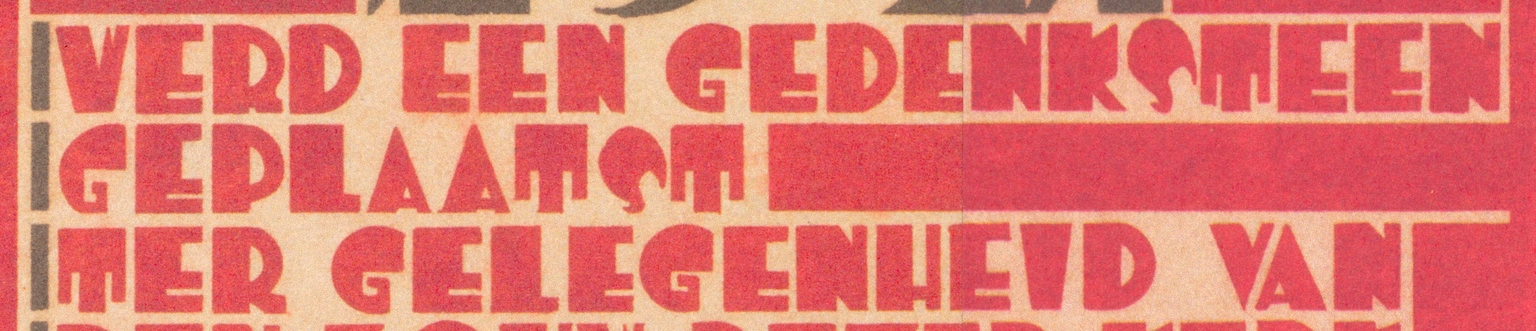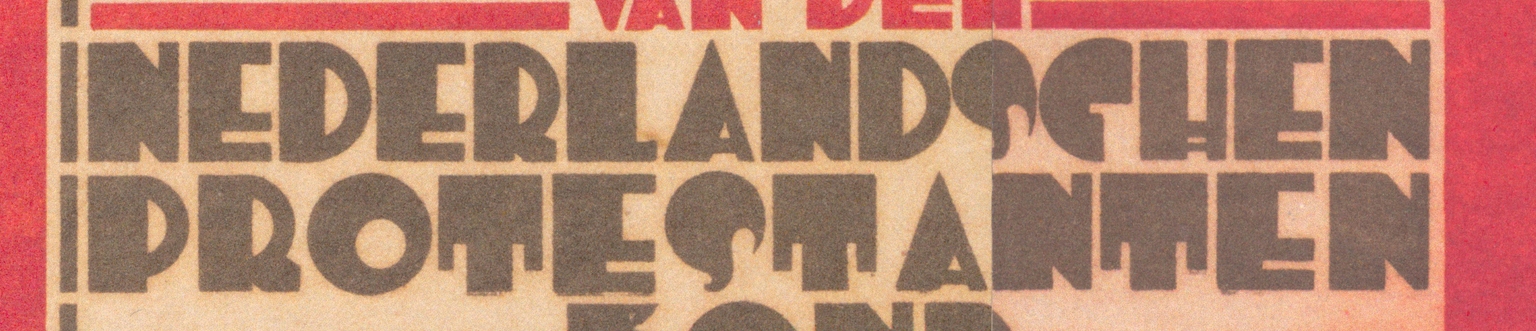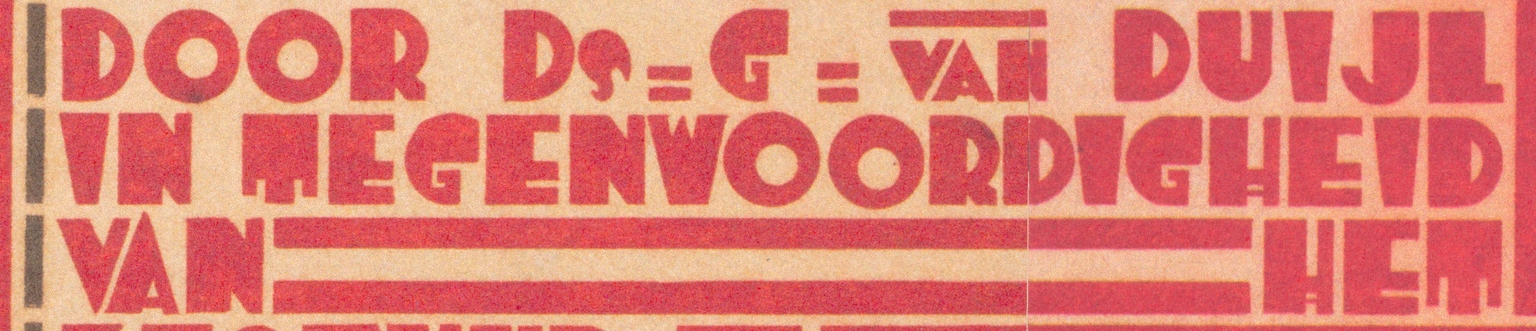
Kazemat
Kazemat is an expressionist display typeface designed by Ramiro Espinoza and inspired by a design created in 1927 by architect C. M. Bakker for the Nederlandschen Protestanten Bond (Dutch Protestant Union). The original lettering is characterized by strong contrasts, sharp angles, simplified geometric construction, and a dynamic rhythm typical of interwar Expressionist design, where typography served as a vehicle for emotion and visual impact.
As with many typefaces in the Brutal Types collection, Espinoza studied the structure and character of Bakker’s letterforms and translated them into a contemporary digital design. Rather than reproducing the poster lettering literally, he refined the forms, improved consistency, and expanded the character set for modern use, while preserving the tension and spontaneity of the source.
With its angular shapes and strong presence, Kazemat is well suited for posters, editorial design, cultural projects, branding, and visual identities that call for a bold and unconventional typographic voice. Rooted in early twentieth-century avant-garde design, it brings an expressionist sensibility into contemporary graphic practice.
Designer
Ramiro Espinoza